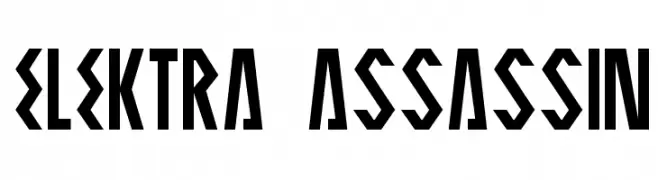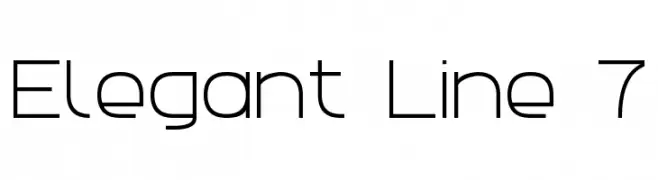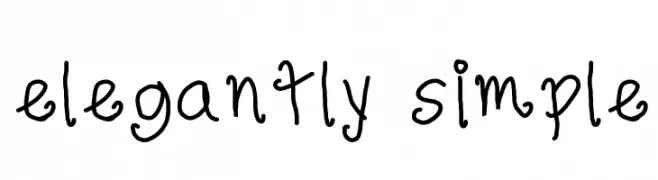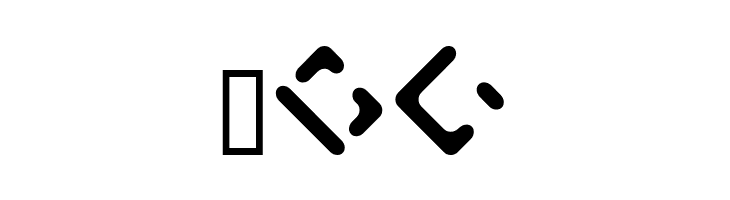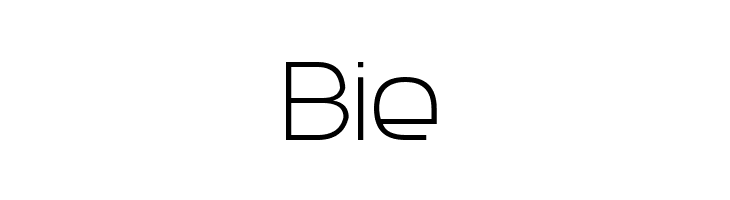
A bold, electrifying font with jagged outlines and dynamic energy.
A modern, geometric font with a technical and sleek design.
A bold, geometric font with a digital, pixelated aesthetic.
A sleek, modern font with clean lines and a minimalist aesthetic.
A playful, handwritten font with smooth, rounded strokes and quirky loops.
A bold, geometric font with a futuristic, digital aesthetic.
A bold, geometric font with a modern, futuristic style.
A playful, hand-drawn font with a rough, organic texture.